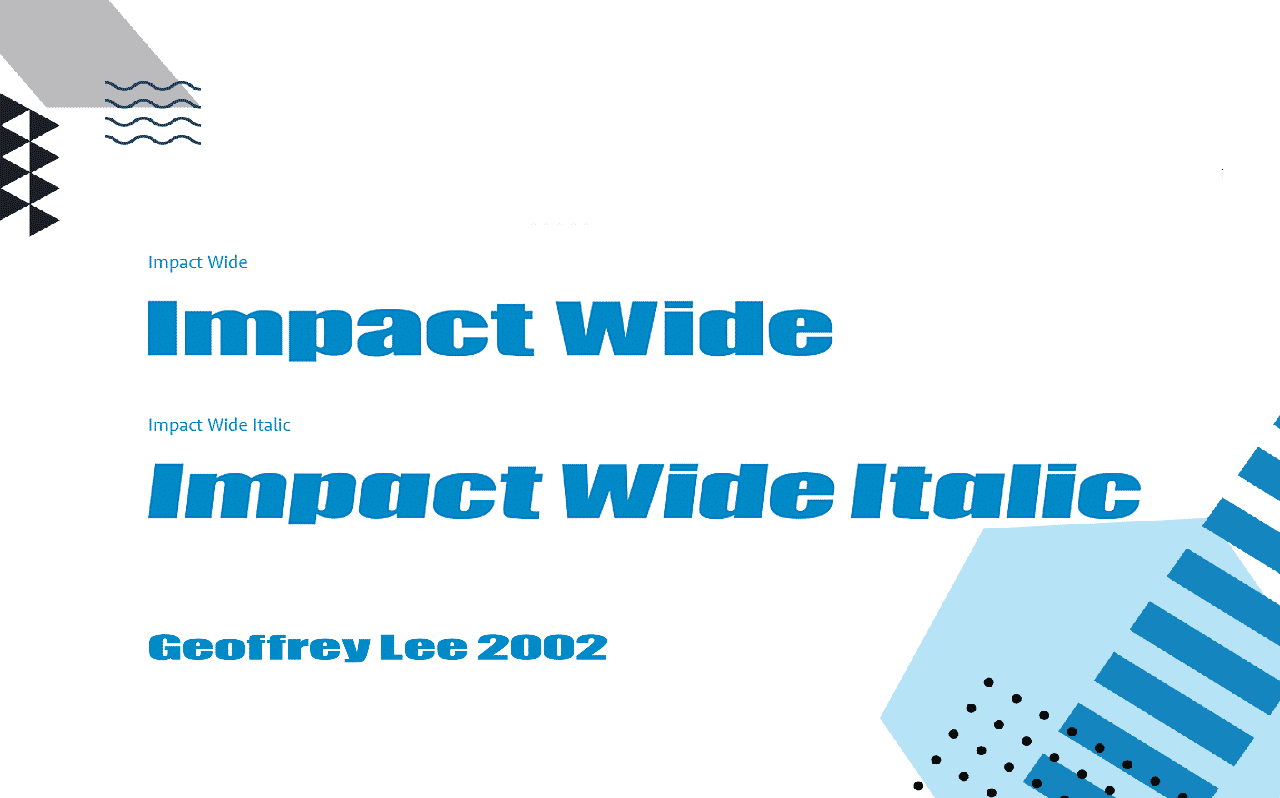
Impact Wide Font
Impact Wide Font - ← back to family page. Web impact wide font. Impact is included for free with windows, but is not included with. Web complete family of 2 fonts: ← back to family page. Web impact is a big and bold font also known as the meme font.
← back to family page. ← back to family page. Web complete family of 2 fonts: Web impact is a big and bold font also known as the meme font. Web impact wide font. Impact is included for free with windows, but is not included with.
Web impact is a big and bold font also known as the meme font. ← back to family page. Impact is included for free with windows, but is not included with. Web impact wide font. Web complete family of 2 fonts: ← back to family page.
Web impact wide font. Impact is included for free with windows, but is not included with. ← back to family page. Web impact is a big and bold font also known as the meme font. Web complete family of 2 fonts:
Web complete family of 2 fonts: Impact is included for free with windows, but is not included with. Web impact is a big and bold font also known as the meme font. Web impact wide font. ← back to family page.
Web impact is a big and bold font also known as the meme font. ← back to family page. ← back to family page. Web impact wide font. Web complete family of 2 fonts:
← back to family page. ← back to family page. Impact is included for free with windows, but is not included with. Web impact is a big and bold font also known as the meme font. Web impact wide font.
Impact is included for free with windows, but is not included with. Web impact wide font. ← back to family page. Web impact is a big and bold font also known as the meme font. ← back to family page.
Web impact is a big and bold font also known as the meme font. ← back to family page. Web complete family of 2 fonts: ← back to family page. Impact is included for free with windows, but is not included with.
← back to family page. Web complete family of 2 fonts: Impact is included for free with windows, but is not included with. Web impact wide font. Web impact is a big and bold font also known as the meme font.
Web impact wide font. Web impact is a big and bold font also known as the meme font. Web complete family of 2 fonts: Impact is included for free with windows, but is not included with. ← back to family page.
Impact is included for free with windows, but is not included with. Web impact is a big and bold font also known as the meme font. ← back to family page. Web impact wide font.